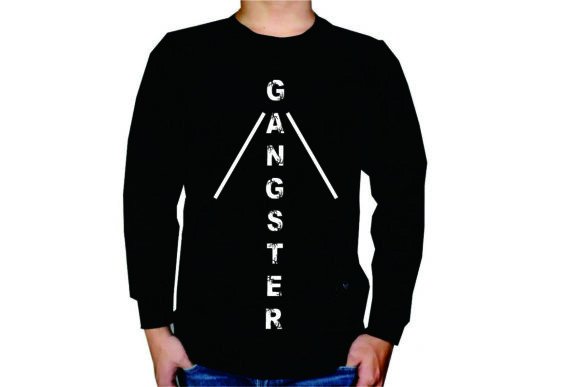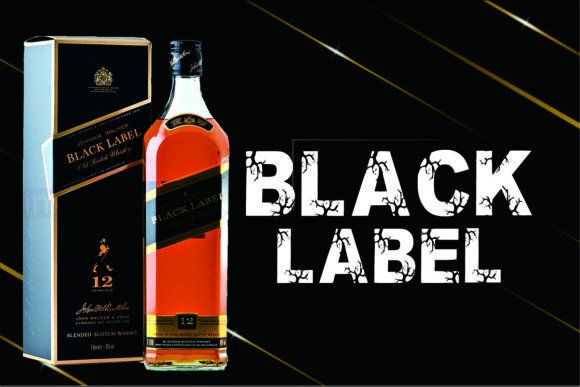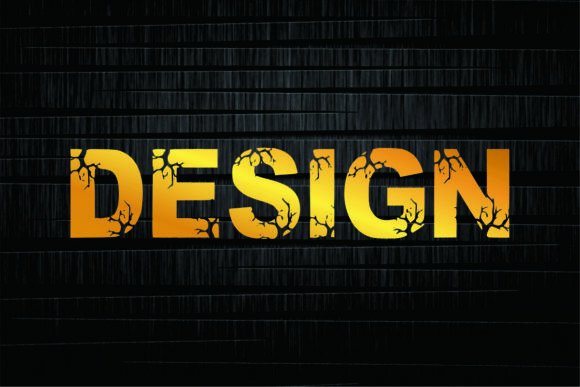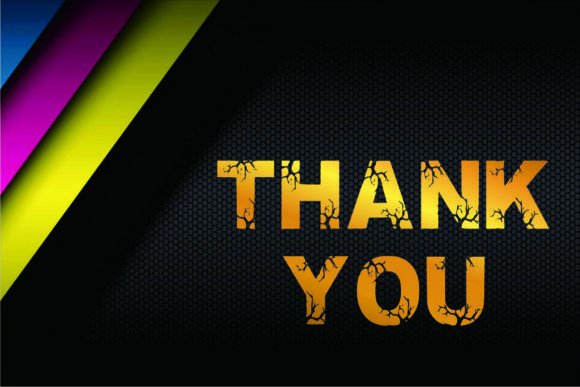
Ghetar Font: Unleash Strength and Toughness in Your Designs
In the world of typography, fonts play a crucial role in conveying emotions and setting the tone for a design. For designers and crafters looking to add a touch of ruggedness and resilience to their work, the Ghetar font is an excellent choice. This upright-style display font boasts a cracked feel that exudes strength and toughness, making it perfect for a variety of creative projects.
The Ghetar Font: A Symbol of Strength and Toughness
Ghetar is more than just a font – it’s a statement. Its unique cracked texture gives it a rugged, worn-in look that’s sure to grab attention. This font is designed to evoke a sense of resilience and determination, making it ideal for designs that require a bold and fearless aesthetic. Whether you’re working on a movie theme, logo, T-shirt design, or background, Ghetar is the perfect choice to add a touch of grit and toughness.
One of the standout features of the Ghetar font is its versatility. Its bold, upright style makes it suitable for a wide range of applications, from:
- Movie themes: Add a touch of grit and realism to your movie posters, trailers, and title sequences.
- Logos: Create a bold and memorable logo that exudes strength and confidence.
- T-shirts: Design eye-catching T-shirts that make a statement with Ghetar’s rugged charm.
- Backgrounds: Use Ghetar to add texture and depth to your backgrounds, giving them a unique and edgy feel.
Why Choose Ghetar Font?
So, what sets Ghetar apart from other fonts? Here are just a few reasons why designers and crafters love this font:
- Unique texture: The cracked texture of Ghetar gives it a one-of-a-kind look that’s sure to stand out.
- High-impact: The bold, upright style of Ghetar makes it perfect for designs that need to grab attention.
- Versatile: Use Ghetar for a wide range of applications, from digital designs to print materials.
Bringing Your Creative Ideas to Life
With Ghetar font, the possibilities are endless. Whether you’re a seasoned designer or a crafty DIY enthusiast, this font is sure to inspire your creativity. Here are a few ideas to get you started:
- Create a bold and eye-catching logo for your business or brand.
- Design a striking movie poster or title sequence.
- Make a statement with a custom T-shirt or hoodie.
- Add texture and depth to your digital designs or print materials.
In conclusion, the Ghetar font is a powerful tool for designers and crafters looking to add a touch of strength and toughness to their work. With its unique cracked texture, bold upright style, and versatility, Ghetar is the perfect choice for a wide range of creative projects. So why wait? Add Ghetar to your font collection today and unleash your creativity!